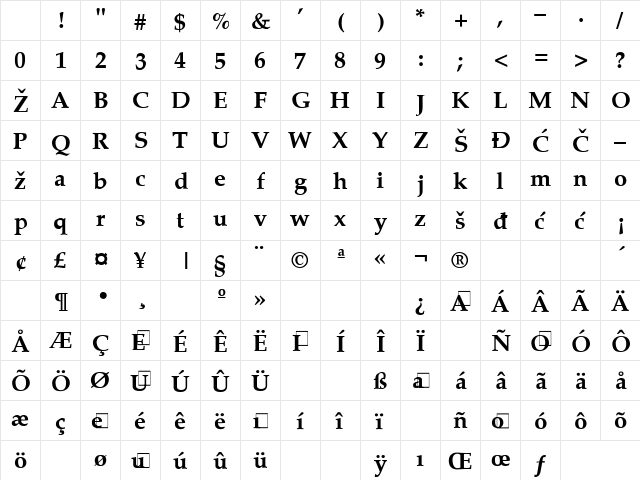
Palm Springs Bold YU is a composed and adaptable typeface that performs quietly and consistently across a wide range of design contexts. Its bold stroke weight gives it real presence on the page.